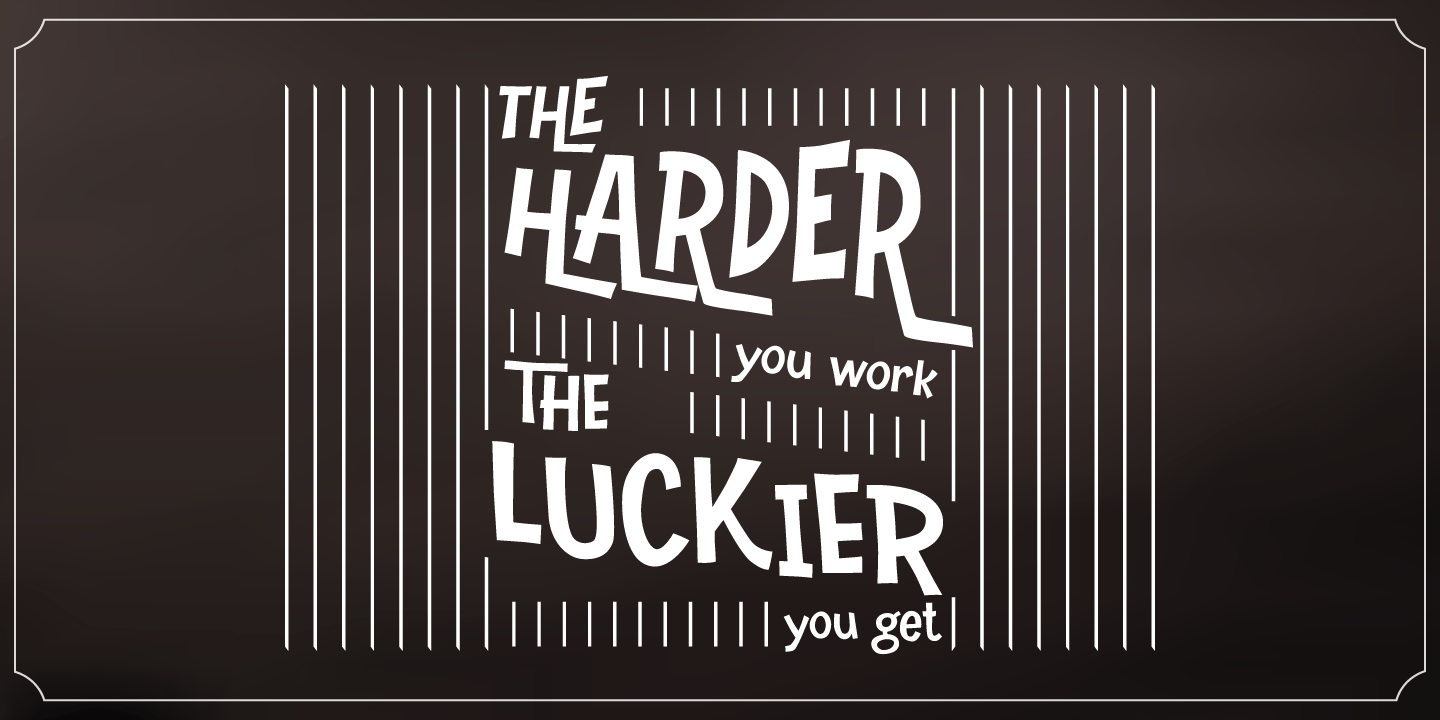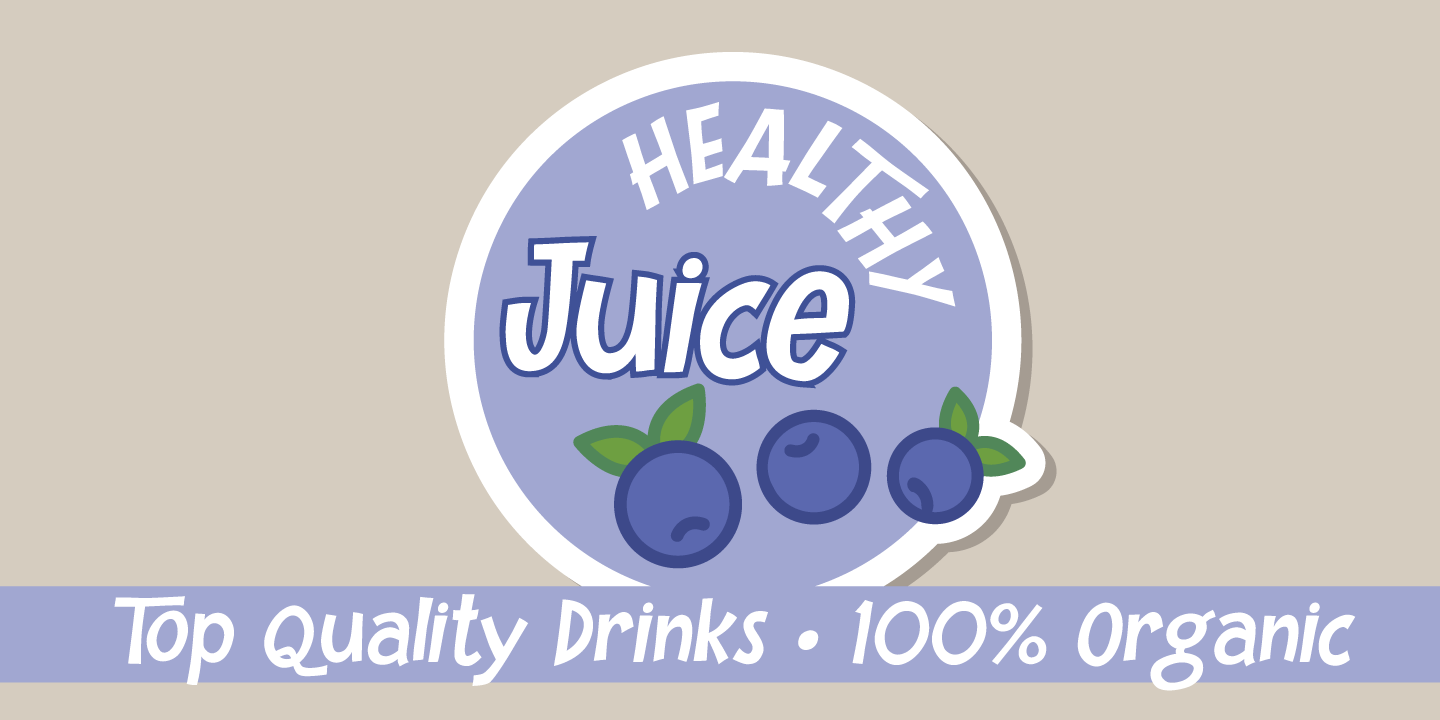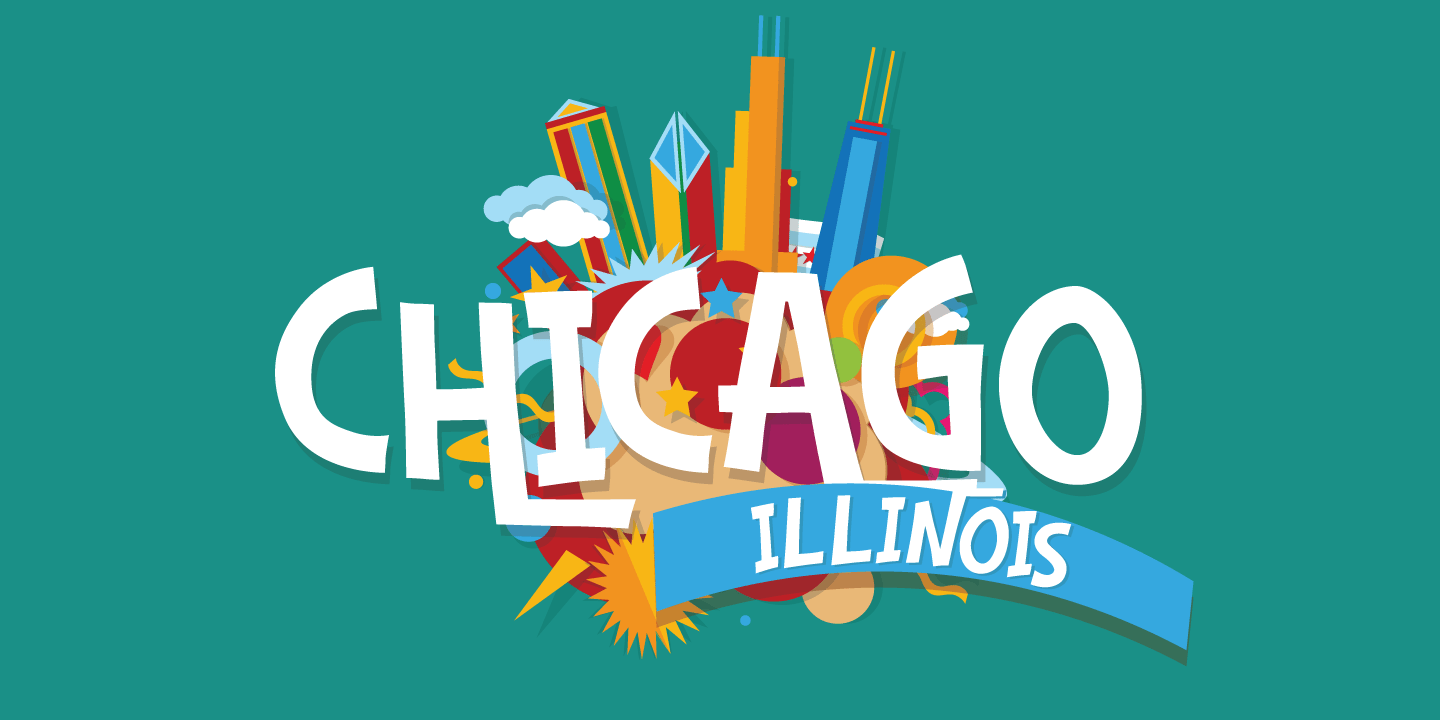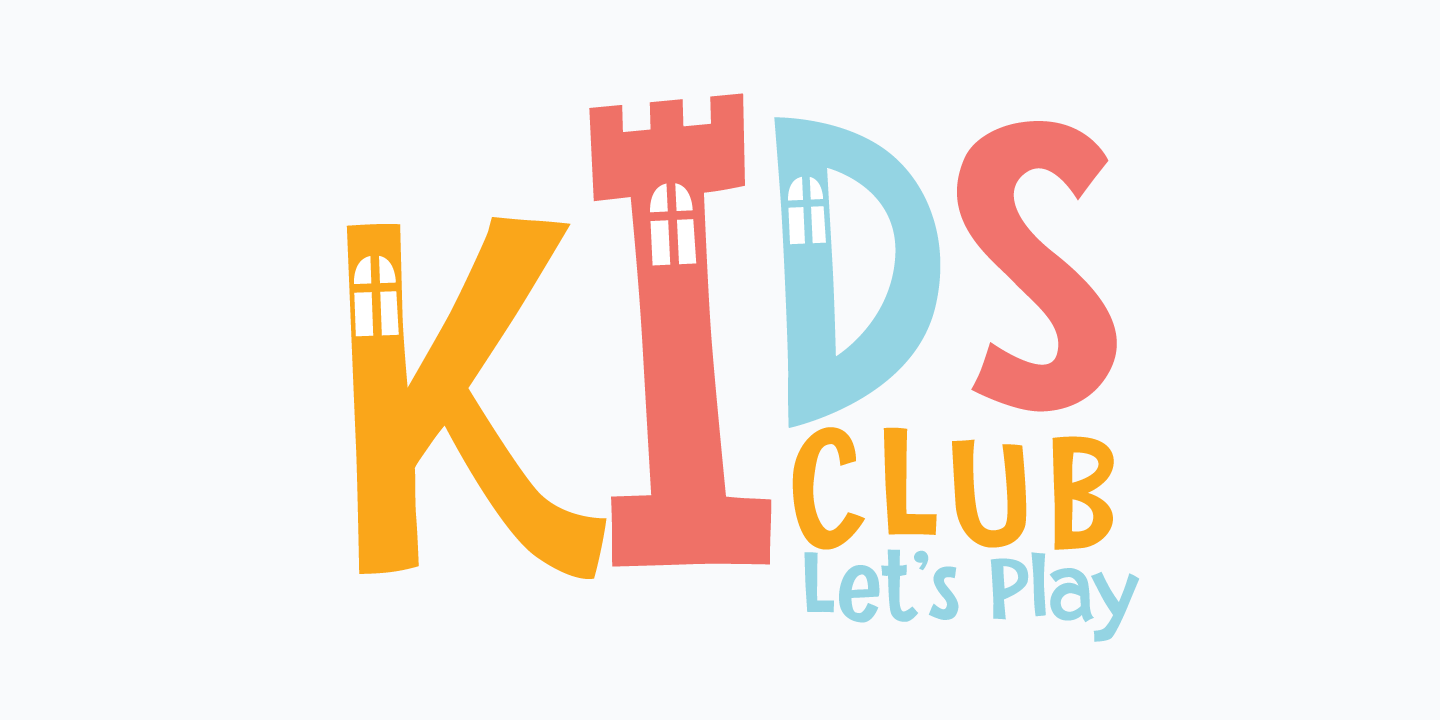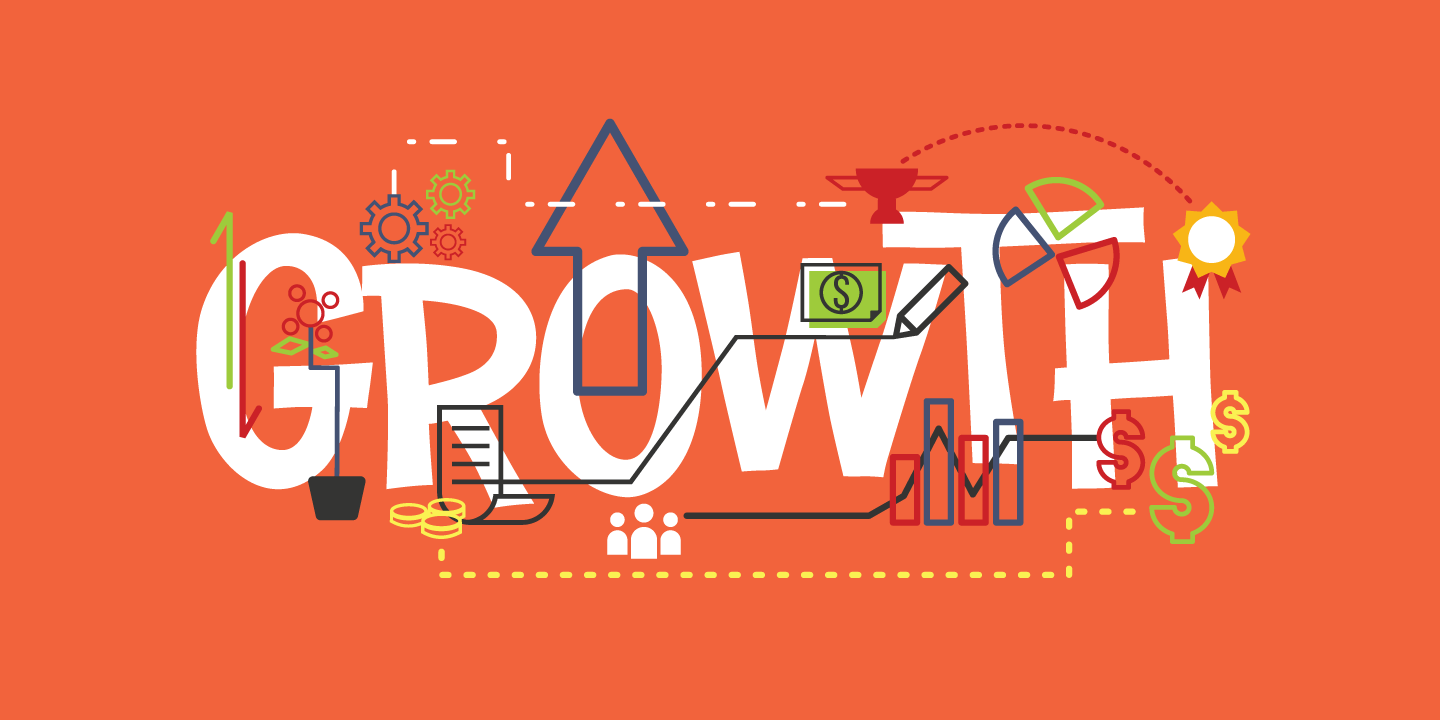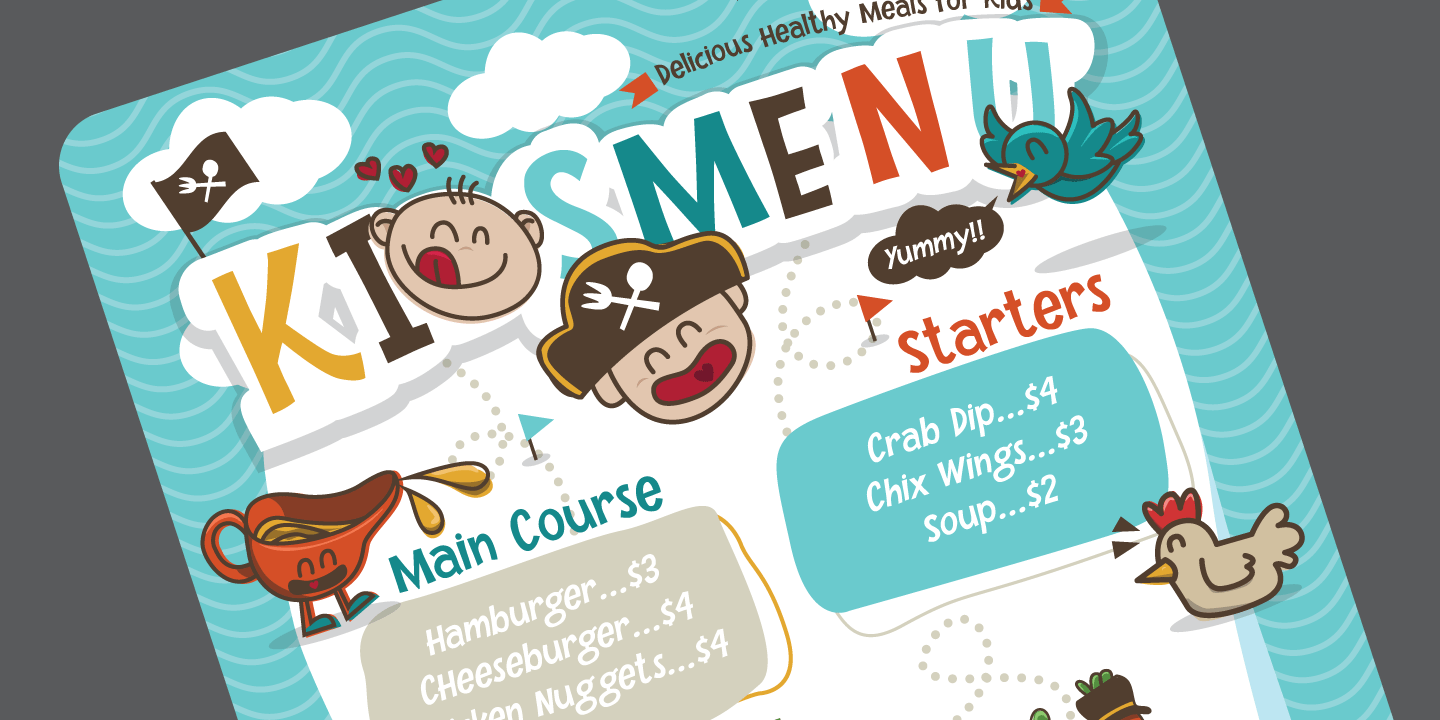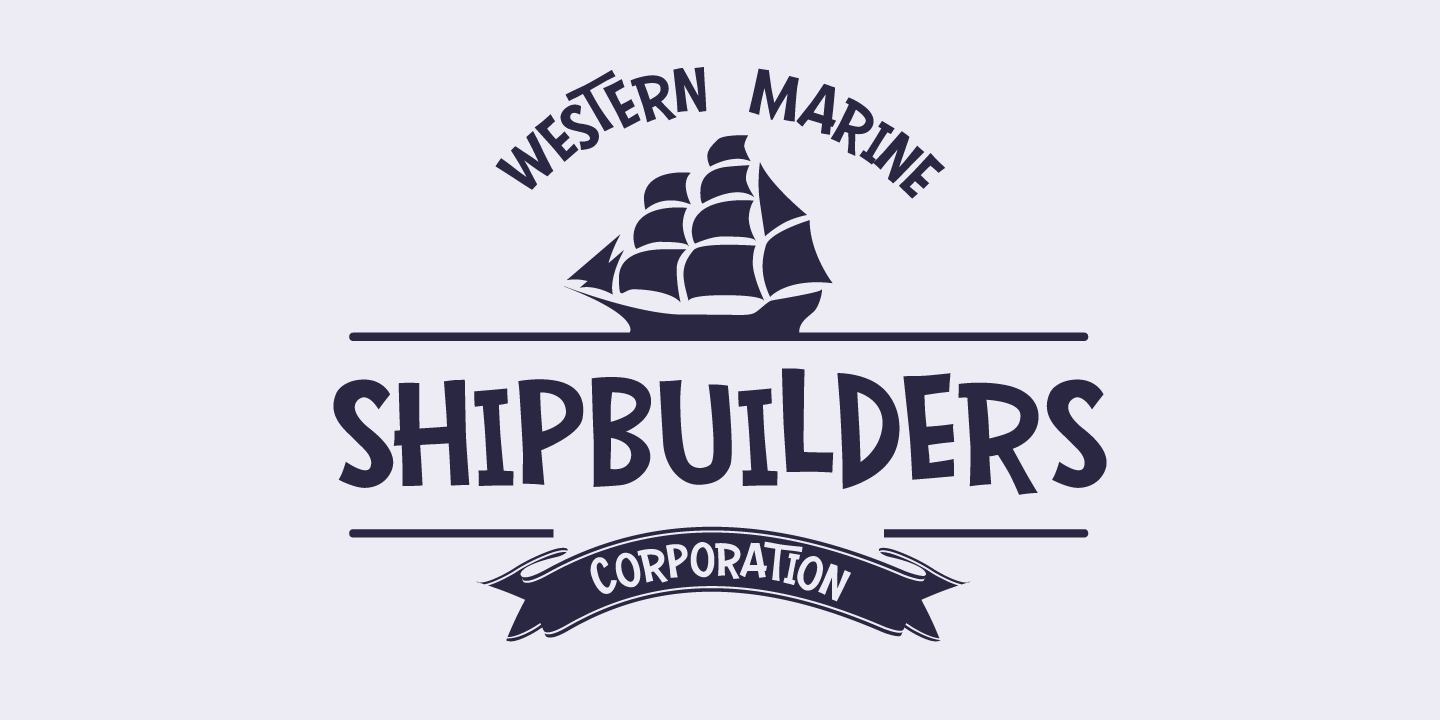
Mr & Mrs Konky
About Mr & Mrs Konky
Bet your sweet donkey it\’s Mr. and Mrs. Konky! A causal, cartoony concoction made by hand! Marital bliss has been achieved with tons of alternates, ligatures and a full Vietnamese character set.